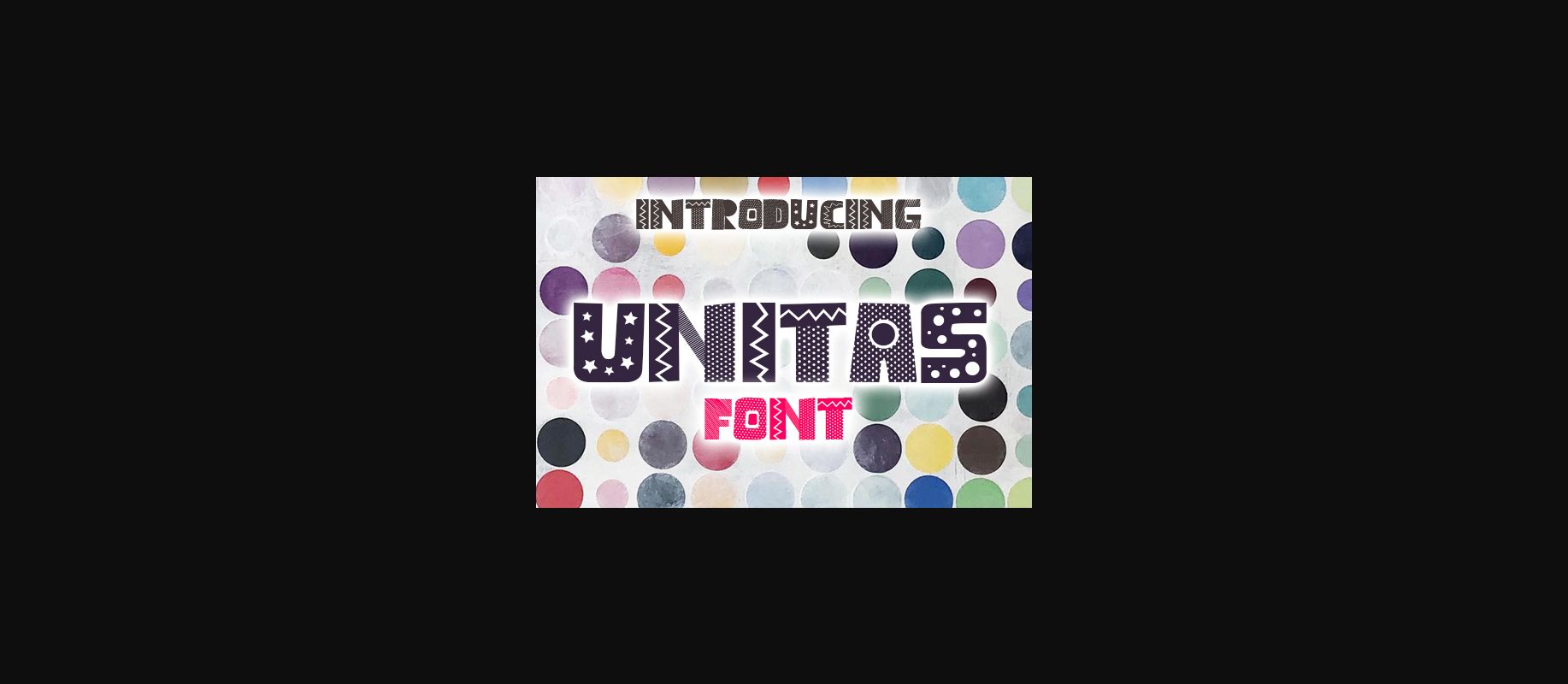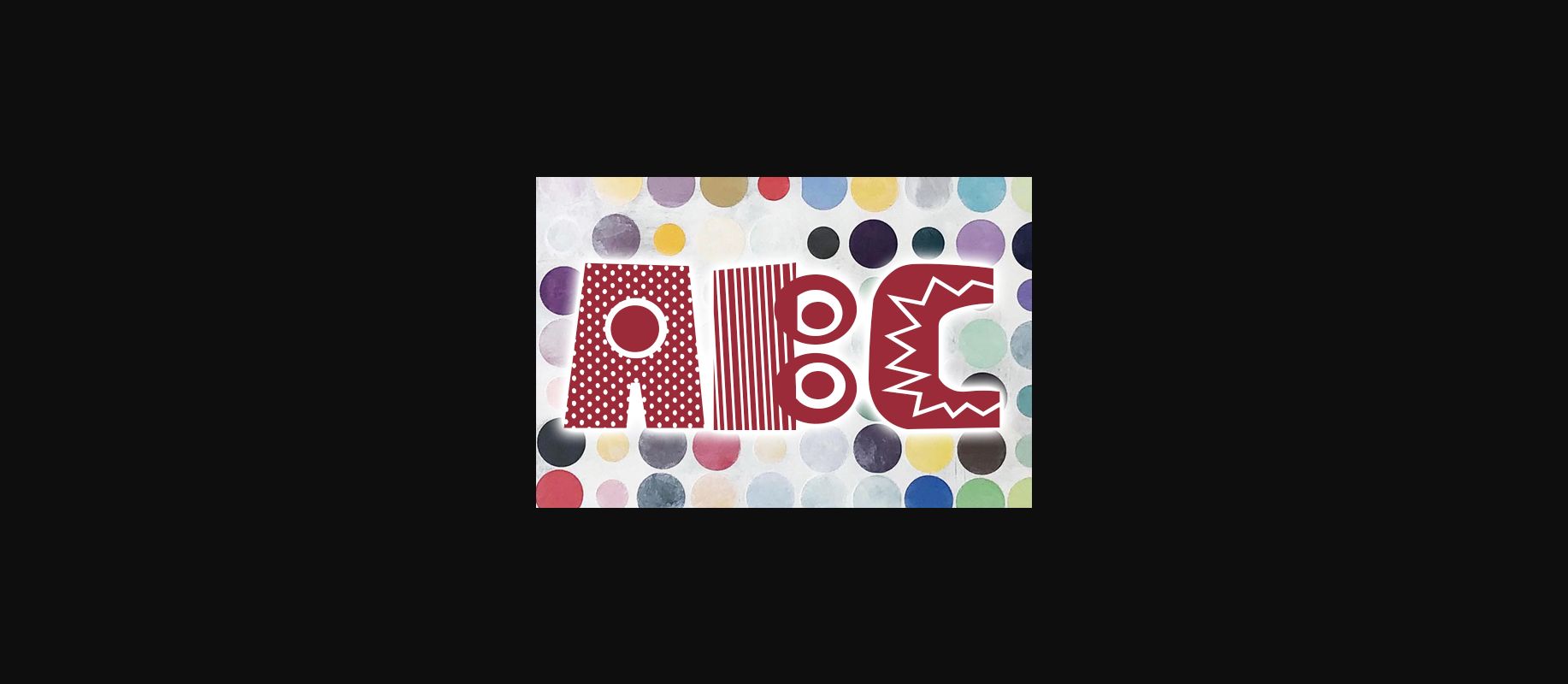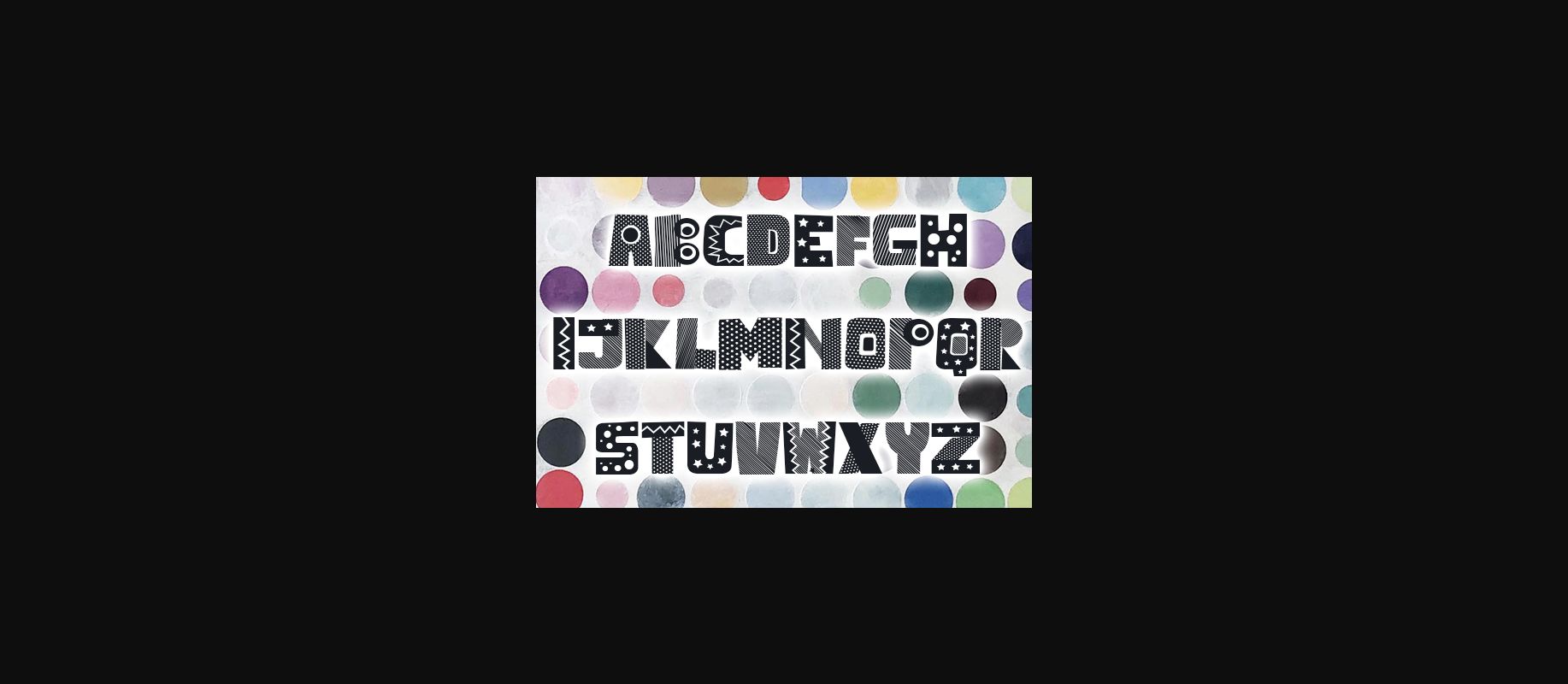
Unitas Font
About Unitas Font
Unitas embodies fun, quirkiness and authenticity. This enchanting decorative font will turn any creative idea into a true standout.